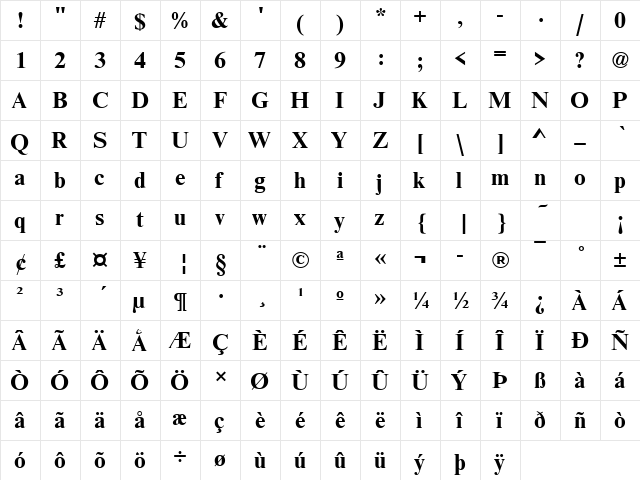
NimbusRomNo9T Bold
Design Context for NimbusRomNo9T Typeface
NimbusRomNo9T offers clean, dependable letterforms without strong stylistic allegiance, making it a practical choice for designers who need flexibility. Its bold stroke weight gives it real presence on the page.